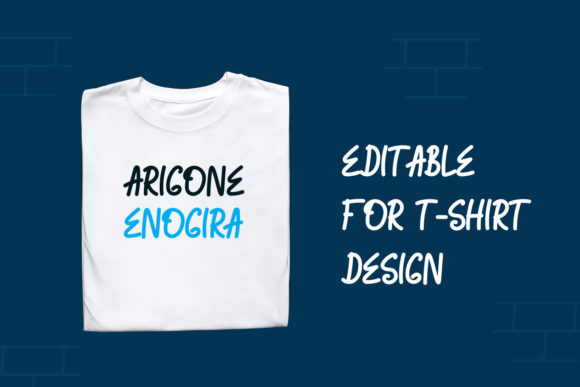
Arigone Font: Bold, Creative, and Unique Fonts for Tattoo Lettering
Prepare to embark on a typographic adventure with Arigone Font, the most captivating and distinctive display font tailor-made for tattoo lettering. With its captivating strokes and sharp edges, Arigone Font is the perfect choice for those seeking to create captivating designs that leave a lasting impression.
Unleash your creativity with this trendy and playful font, and let your imagination run wild. Whether you're a seasoned tattoo artist or a passionate DIY enthusiast, Arigone Font will serve as your ultimate companion in creating stunning body art that speaks volumes. Its remarkable versatility will take your designs to new heights, allowing you to craft eye-catching logos, headers, posters, and any other project that requires an edgy touch.
With Arigone Font, you'll never settle for ordinary again. Its striking appearance will instantly allure those who appreciate the beauty of unconventional fonts, making it an indispensable tool for both personal and professional projects. Dive into the world of limitless possibilities and let Arigone Font guide you toward creating designs that resonate with authenticity and individuality.
So why wait? Embark on this artistic journey today and discover the endless possibilities that await you with Arigone Font. Unleash your creativity, embrace the unconventional, and let your designs speak louder than words. Arigone Font is your gateway to a world of captivating aesthetics and unforgettable experiences.